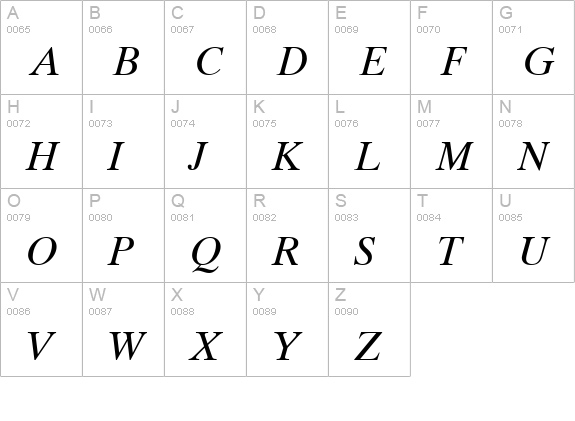
Greco Ten OldStyle SSi Normal is the standard, neutral variant in the Greco typeface family \xE2\x80\x94 well suited to general body text, paragraphs, and standard typographic work.
Greco Ten OldStyle SSi Normal font is a timeless and elegant typeface that exudes sophistication and refinement. With its classic serifs and balanced proportions, this font is perfect for conveying a sense of tradition and professionalism in your design projects. The Greco Ten OldStyle SSi Normal font is ideal for use in a wide range of applications, from editorial layouts to branding materials. What makes this font even more appealing is that it is available for free download at FontsMarket.com. This means that you can easily access and use this high-quality typeface in your projects without any cost involved. Don't miss out on the opportunity to enhance your designs with the timeless beauty of Greco Ten OldStyle SSi Normal font - download it for free today at FontsMarket.com!